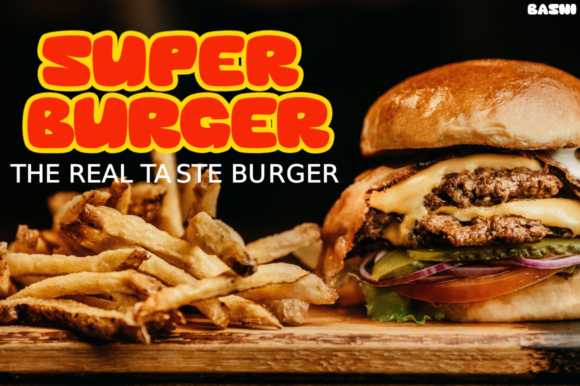
Introduction to Monday Bulkers Font
Do you remember that moment when you finally land on the perfect design element that brings your creative project to life? For many designers, that moment is often the result of a well-chosen font. Today, we’re excited to introduce you to a font that’s sure to make your designs stand out – the Monday Bulkers Font.
As a go-to design resource, Monday Bulkers Font is a cool, thick lettered display font that’s perfect for adding a fun touch to your creations. Whether you’re working on a cartoon, children’s game, or any other project that requires a high-quality and playful feel, this font is an amazing choice. With its unique design, Monday Bulkers Font is sure to make your designs more engaging and memorable.
Key Features of Monday Bulkers Font
- High-quality, unique font design perfect for creative projects, offering a distinctive look to elevate any design.
- Designed to be versatile, Monday Bulkers Font can be used for various purposes, from branding and logos to typography and editorial content.
Honest Review: Monday Bulkers Font
I recently had the chance to try out the Monday Bulkers Font, a popular free download in the design community. As a designer, I’m always on the lookout for high-quality fonts that can elevate my creative projects. In this review, I’ll share my honest thoughts on what works well and what doesn’t.
- Unique aesthetic: The Monday Bulkers Font has a bold, playful feel that’s perfect for eye-catching headlines and titles.
- High-quality design: The font is well-designed, with clear lines and a transparent background that makes it easy to read.
- Limited font sizes: The font is best used for larger sizes, as the smaller sizes can become difficult to read.
- No italic or bold versions: While the font is great for headings, it’s lacking in italic and bold versions, which can be limiting for some design projects.
Overall, I’m impressed with the Monday Bulkers Font, but it’s not without its limitations. While it’s a great resource for designers, it’s best suited for specific design projects that require a bold, playful font. With a little creativity, I think this font can be a valuable addition to any designer’s toolkit.
Tips for Getting the Most Out of Monday Bulkers Font
To get the most out of Monday Bulkers Font, experiment with different font sizes, colors, and combinations. Use the font’s transparent background feature to create unique designs. Also, consider pairing Monday Bulkers Font with other high-quality design resources to achieve a cohesive look.
Common Use Cases for Monday Bulkers Font
Monday Bulkers Font is suitable for a variety of creative projects, including business cards, brochures, and presentations. It’s also perfect for social media graphics, logos, and other design elements that require a high-quality, modern font.